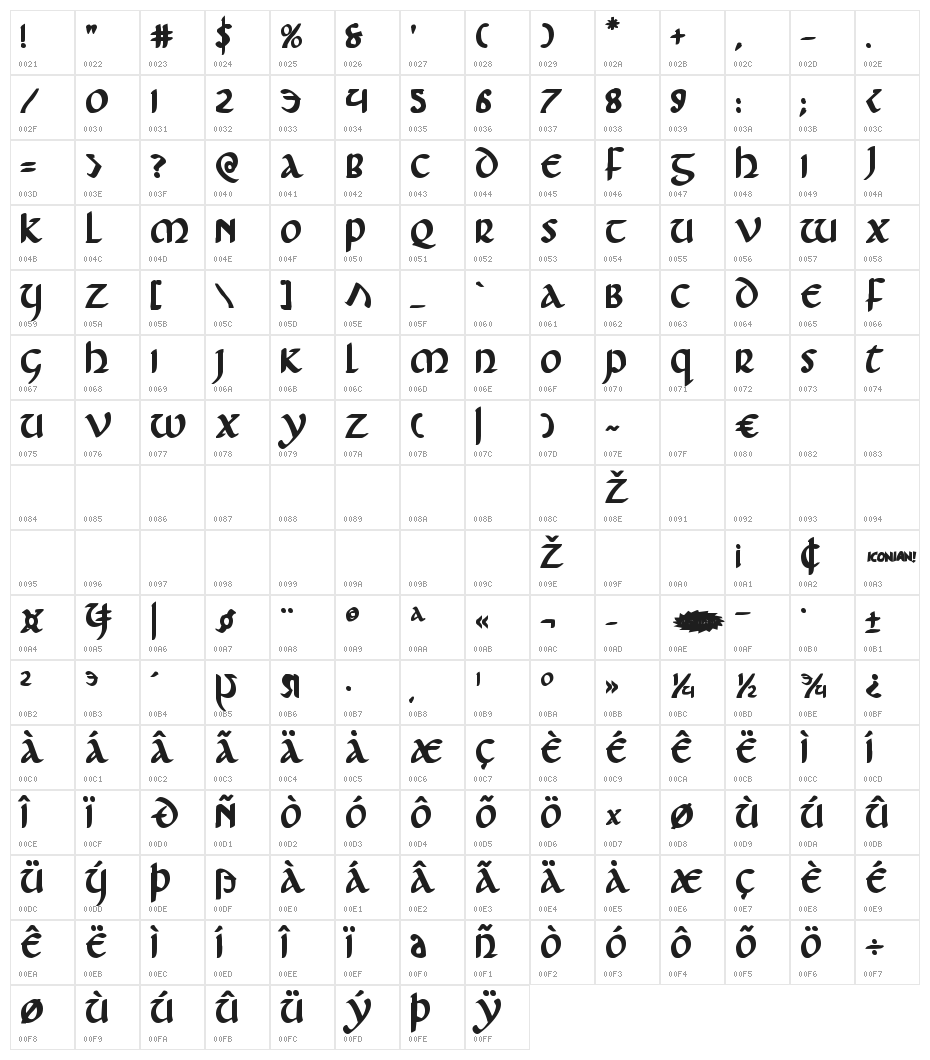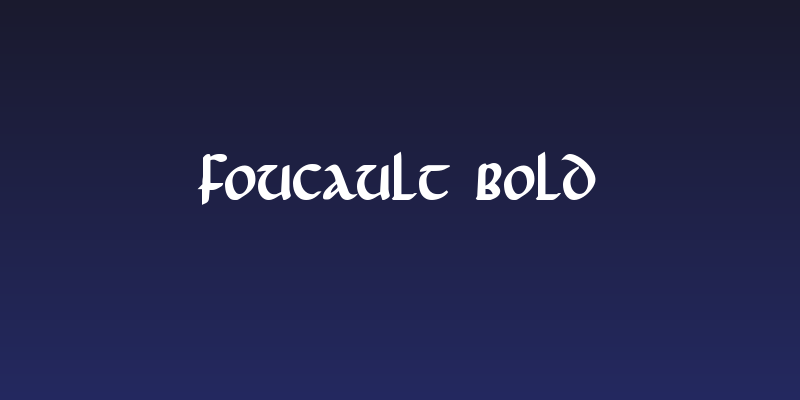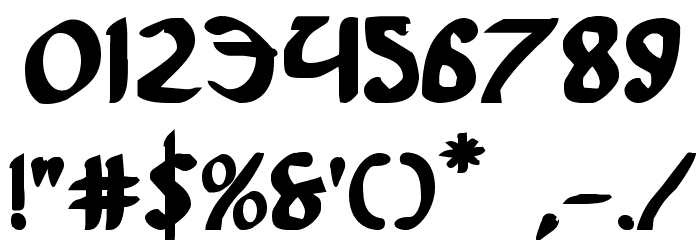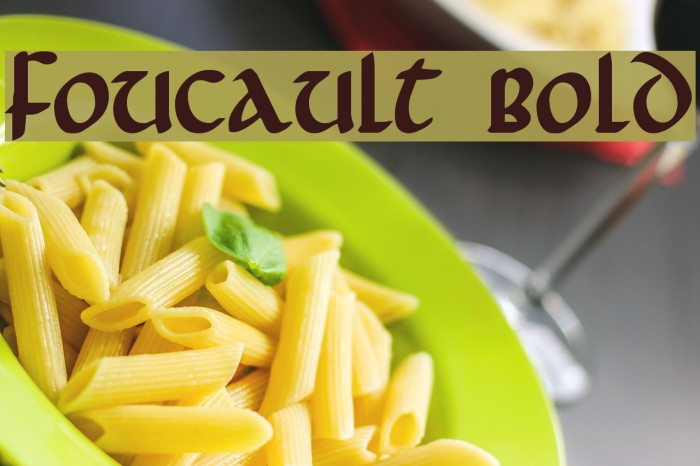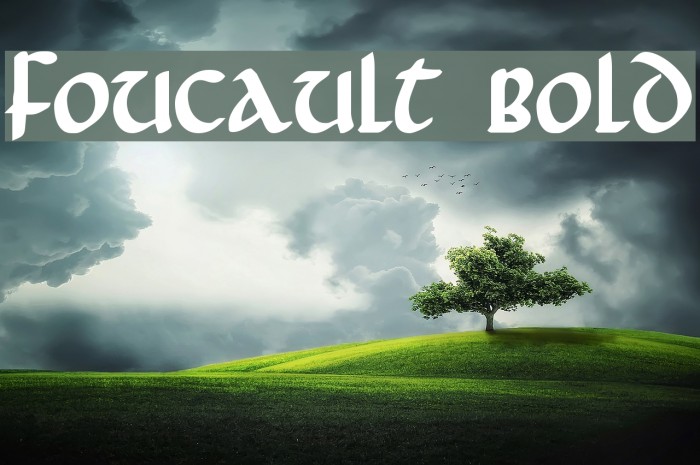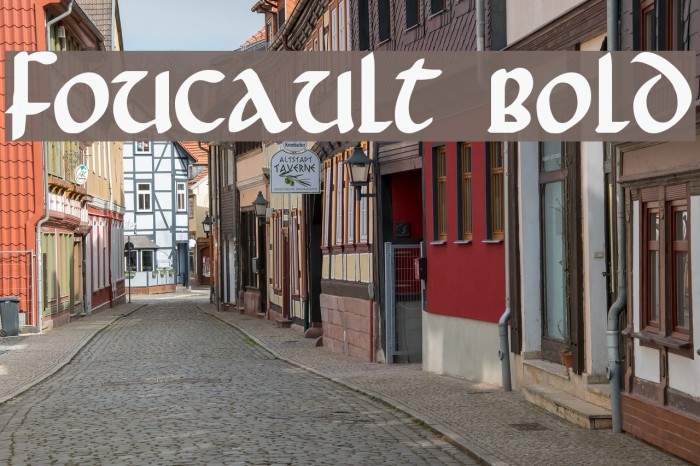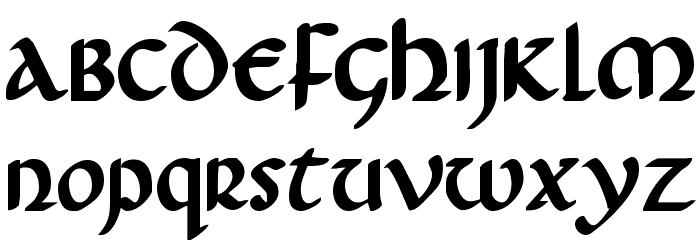
Foucault Bold Font
Foucault Bold Description
This font features a bold and dynamic style with a strong presence. The characters are designed with a calligraphic influence, showcasing elegant curves and sharp edges that create a sense of movement and fluidity. The uppercase and lowercase letters maintain a consistent style, with the uppercase being slightly more pronounced. The numerals are distinct and easily readable, while the special characters complement the overall aesthetic. This font's unique design makes it stand out, offering a blend of traditional and modern elements.